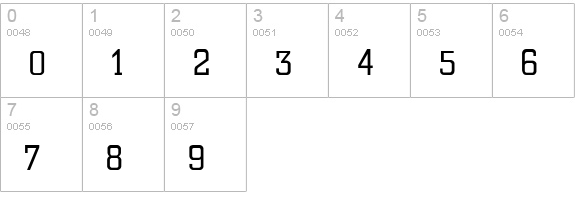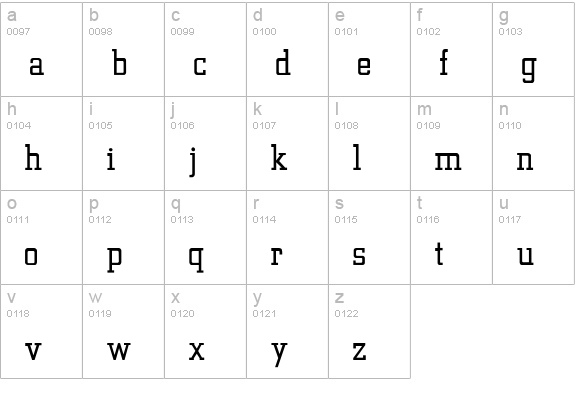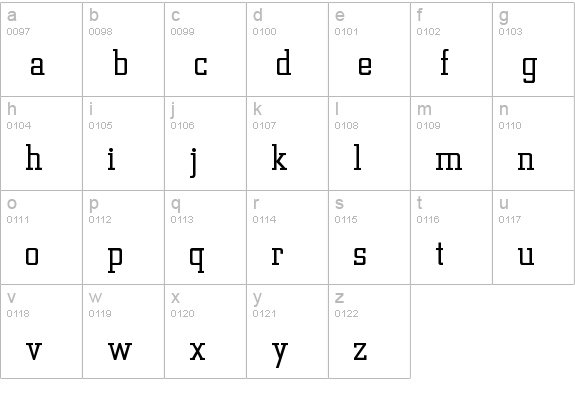
City-Light-Light Font Details
City-Light-Light is a refined, elegant variant in the City typeface family \xE2\x80\x94 well suited to elegant body text, refined sub-headings, and luxury branding.
City-Light-Light font, a modern and sleek typeface perfect for adding a touch of sophistication to any design project. With its clean lines and elegant letterforms, this font exudes a sense of style and professionalism. The light weight of the font adds a delicate and airy feel, making it ideal for titles, headers, and other display purposes. What's even better is that City-Light-Light font is available for free download at FontsMarket.com. This means you can easily access this beautiful typeface and start using it in your projects right away. Whether you're working on branding, advertising, or any other creative endeavor, City-Light-Light font will elevate your designs and give them a polished and refined look. Don't miss out on this opportunity to enhance your work with this stunning font – download it today and see the difference it can make!